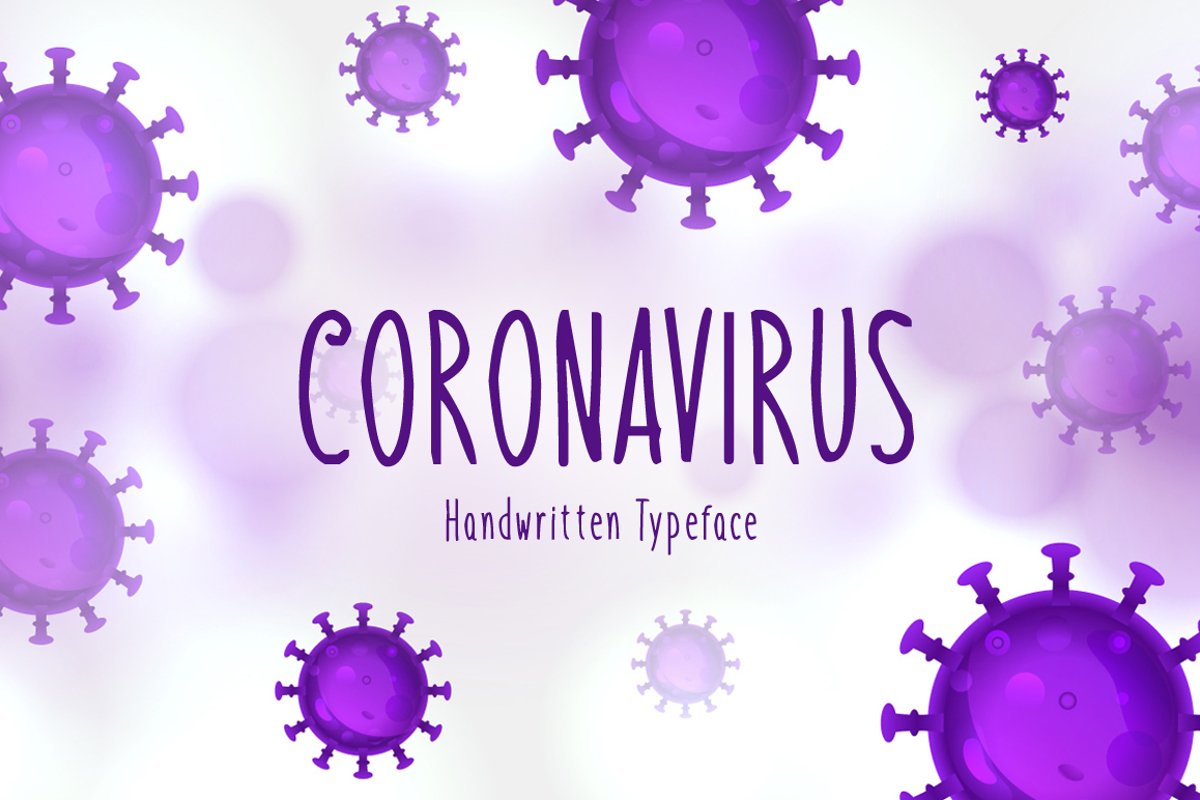
Introducing Coronavirus!
Coronavirus is a brand new handwritten font. Coronavirus is perfectly suited for stationery, logos, t-shirt, paper, print design, website header, photo frame, flyer, music cover, poster, image slider and much more.